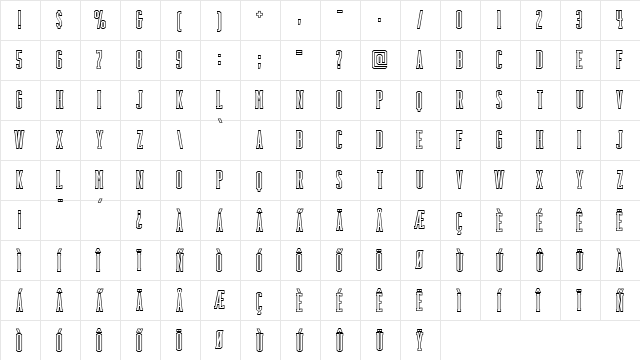
BackboardOutline Font Preview
BackboardOutline Outline
BackboardOutline Font Details
| Style | Outline |
| Foundry | HENRIavecunK |
| Designer | HENRIavecunK |
Design Context for BackboardOutline Typeface
BackboardOutline is built around its visual character rather than neutral utility — its distinctive forms are designed to make an impression at display sizes.
Font Pairing: Pair with a clean neutral sans-serif for body copy to let BackboardOutline's character lead without overwhelming the composition.
Pro Tip: Use BackboardOutline exclusively at display sizes — it was designed to be seen, not read at length. Let a neutral companion handle body copy.